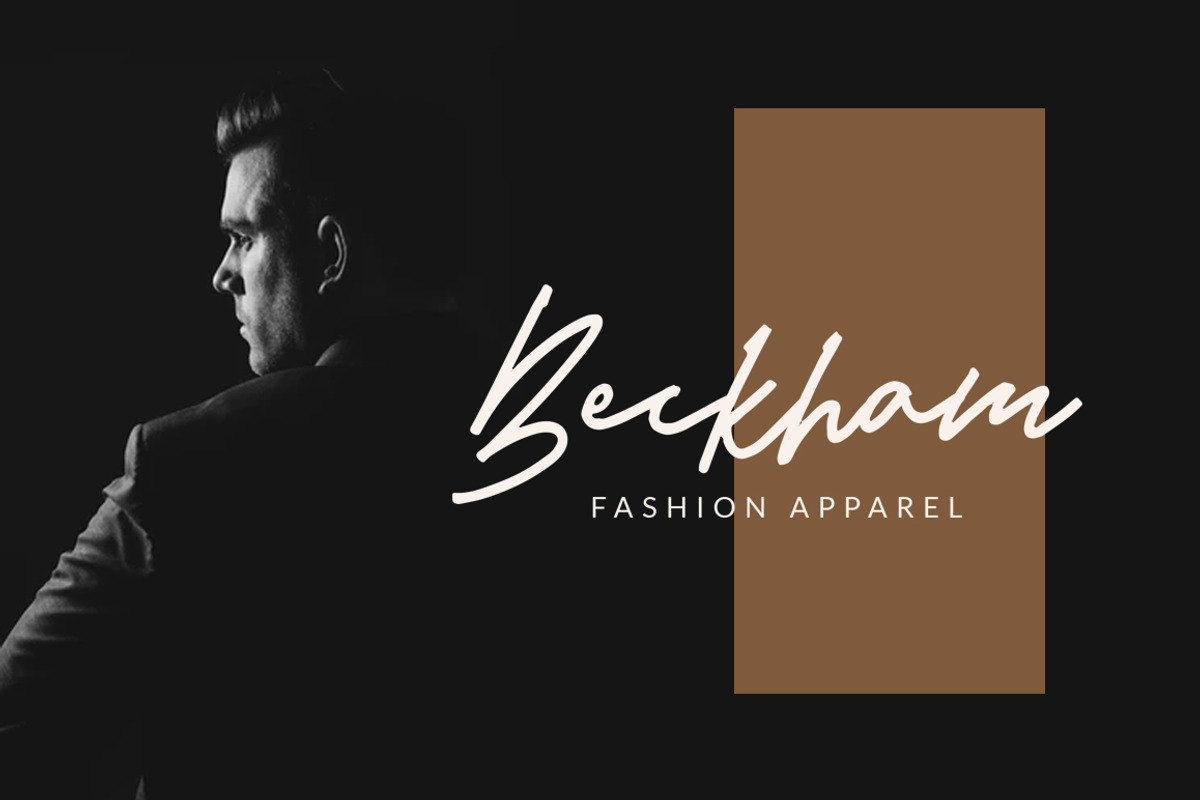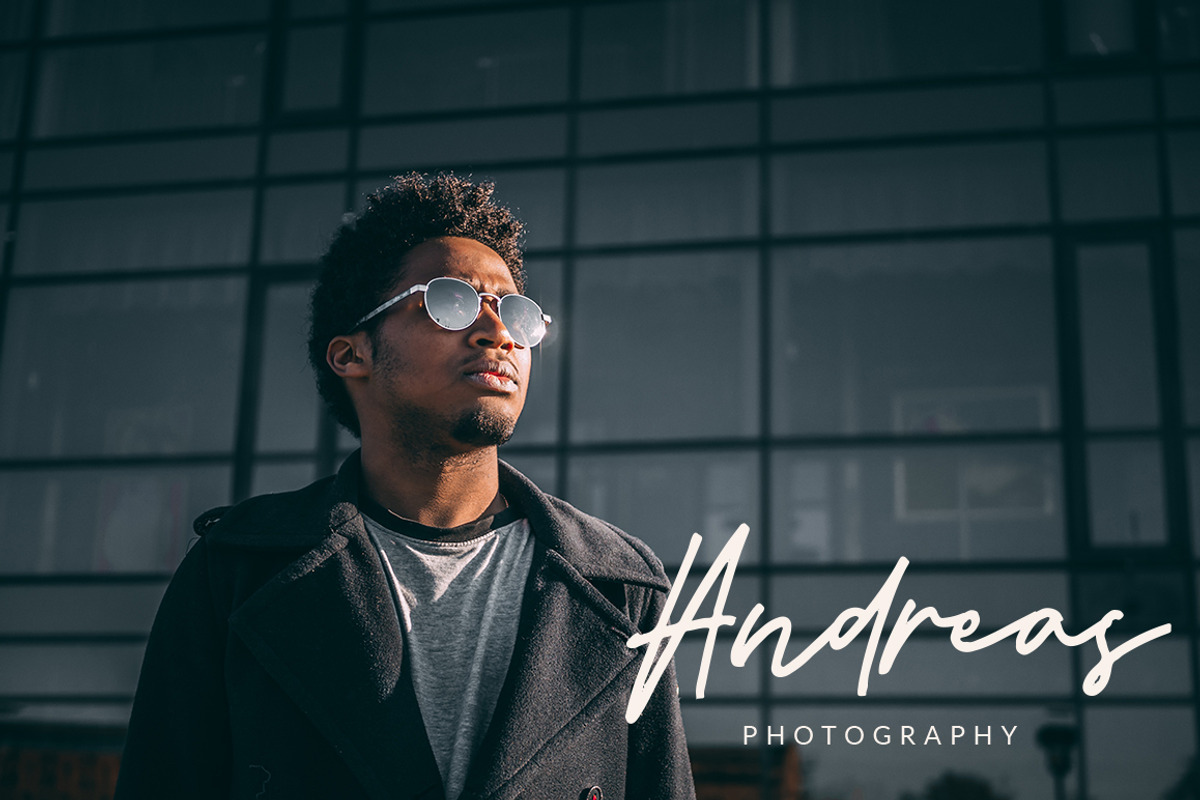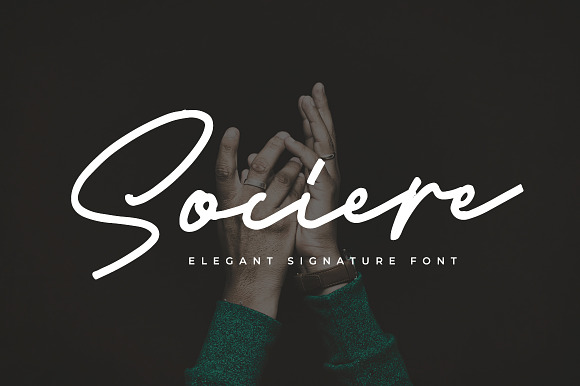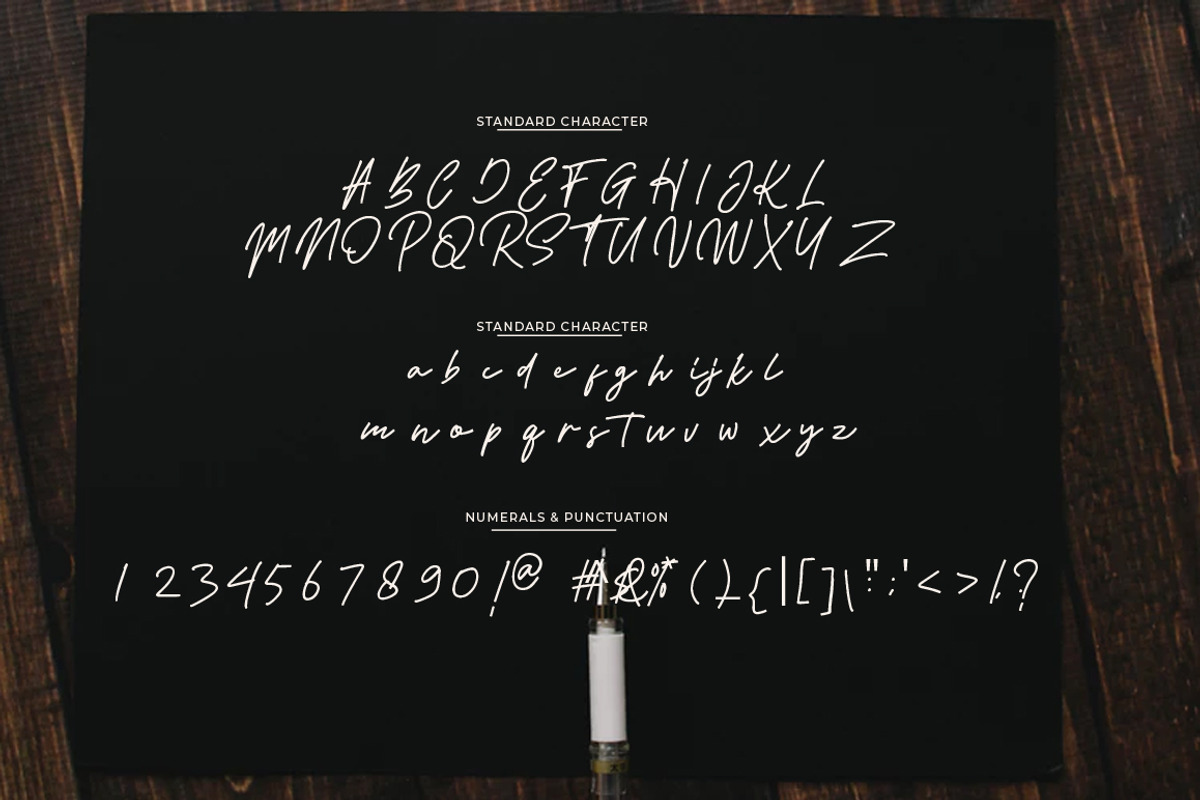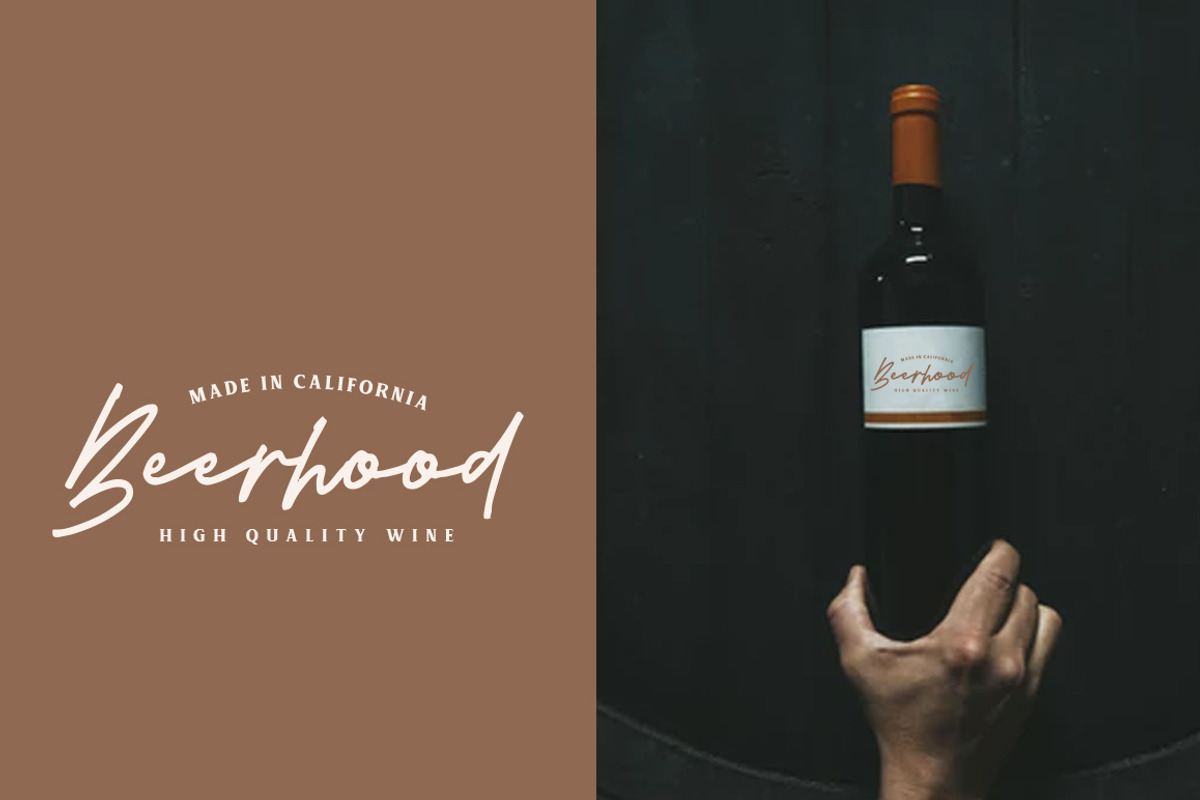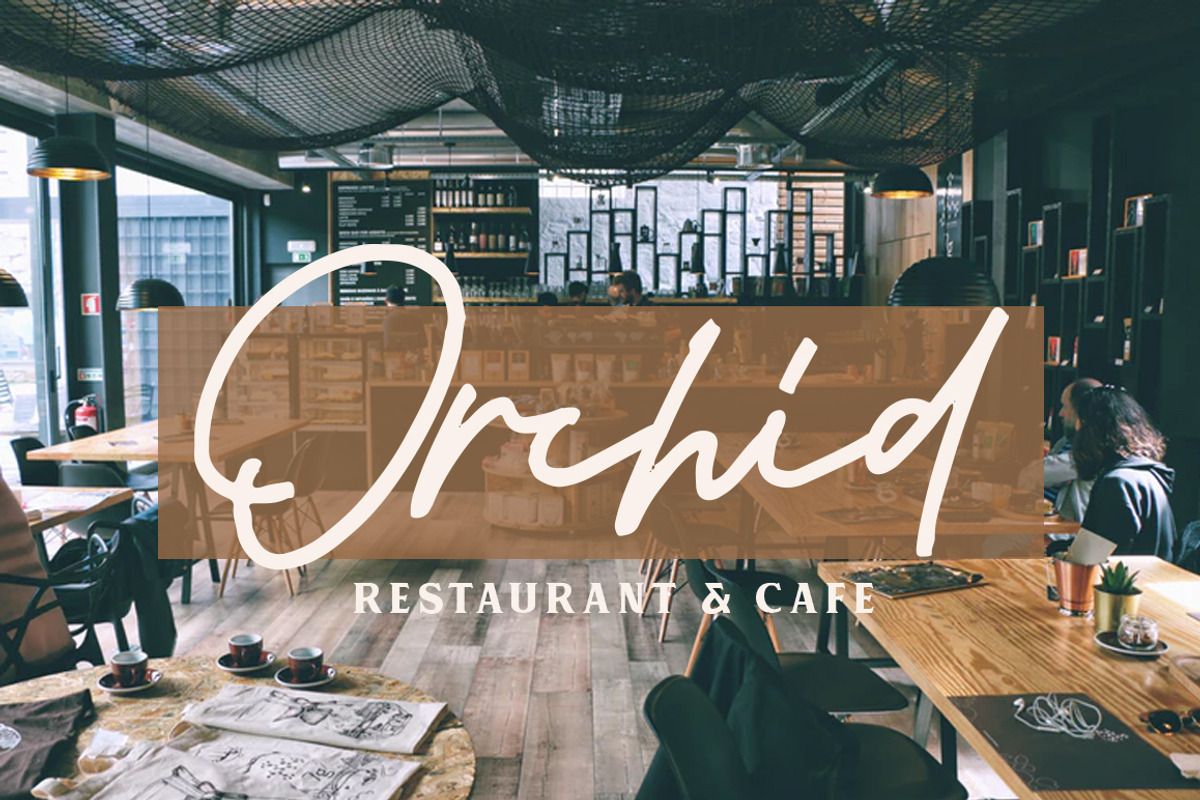
Sociere - Elegant Signature Font
Introducing of our new product the name is Sociere - Elegant Signature Font.
Inspired by signature and stylish handwriting, perfect for many different project such as logos & branding, invitation, stationery, wedding designs, social media posts, advertisements, product packaging, product designs, label, photography, watermark
Sociere - Elegant Signature Font by Indotitas fits naturally into Branding, posters, packaging, typography.